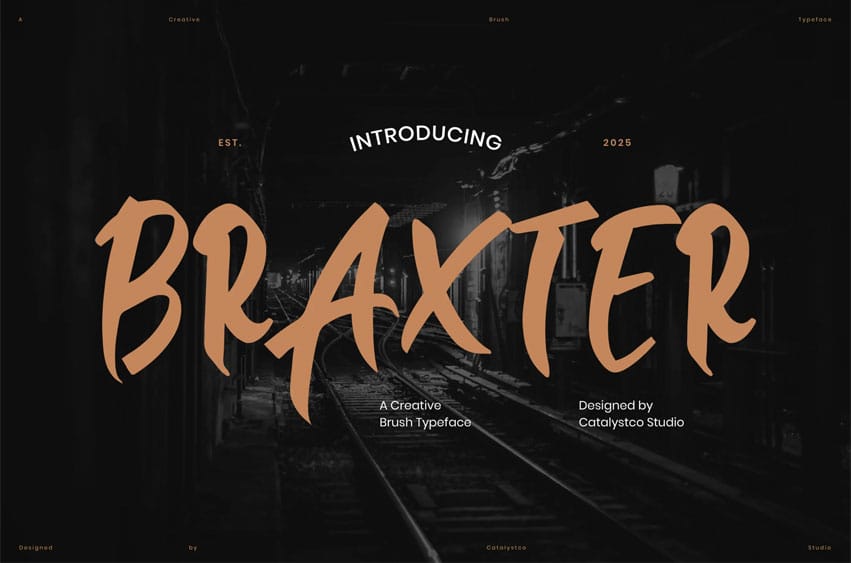
Braxter Font is a dynamic and powerful brush typeface inspired by the raw energy of hand-painted strokes. With its sharp edges, bold curves, and expressive movement, Braxter embodies strength, rebellion, and artistic freedom. This font is perfect for striking headlines, edgy branding, poster designs, and urban-themed visuals. Whether you’re creating a bold statement or a high-impact design, Braxter adds a fearless and adventurous touch that commands attention.